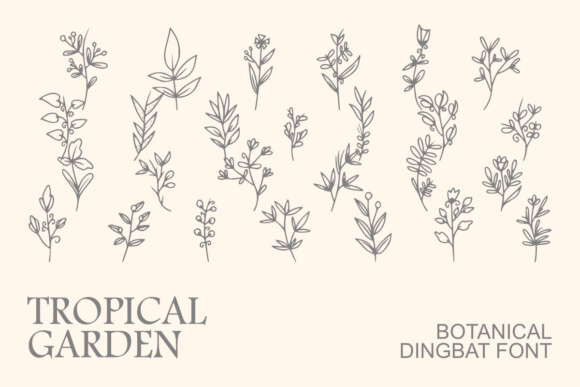
Introducing Tropical Garden Font, the ultimate solution for all your craft needs and beyond. Created by the talented team at DDY Creative, this enchanting dingbat font is specifically designed to elevate your projects to new heights. With its captivating hand-drawn style, Tropical Garden Font is a treasure trove of botanical, foliage, wildflower, branch, wildplant, floral, stem, plant, and botany elements that will breathe life into your designs.
Looking to add a touch of nature's beauty to your fall, autumn, spring, or summer crafts? Tropical Garden Font is the answer! Its diverse range of elements perfectly captures the essence of each season, allowing you to infuse your creations with a sense of natural wonder. Whether you're working on stickers, DIY projects, vinyl designs, or decorative elements, this font will be your faithful companion.
Crafters rejoice! Tropical Garden Font is a match made in heaven for Cricut enthusiasts. Its intricate details and versatile elements make it the best font for Cricut engraving. Let your imagination run wild as you explore the endless possibilities this font offers. From tumbler wraps to laser-cut designs, Tropical Garden Font will transform your projects into mesmerizing works of art.
But wait, there's more! Tropical Garden Font is not just limited to Cricut users. Its universal appeal extends to Silhouette users, decorators, and anyone seeking to add a touch of botanical charm to their creations. Its eye-catching design and rich variety of elements ensure that your projects will stand out from the crowd.